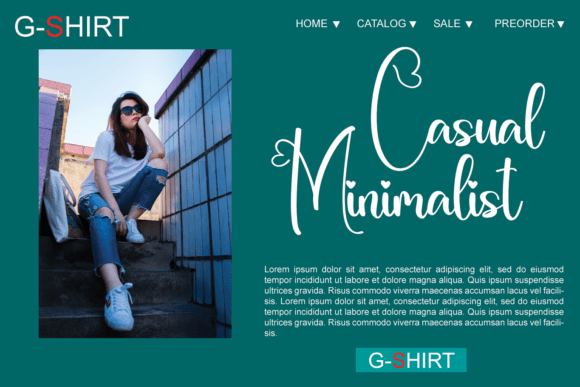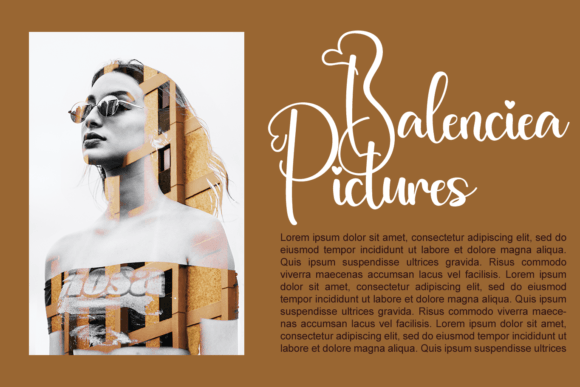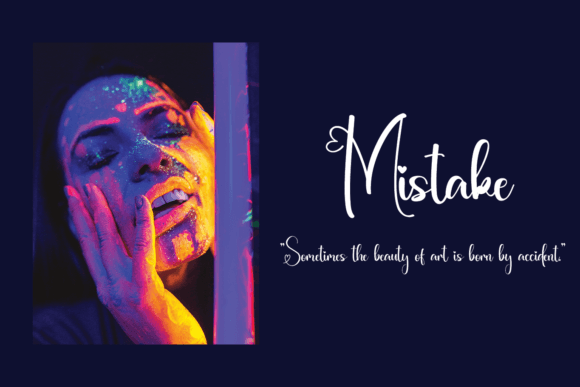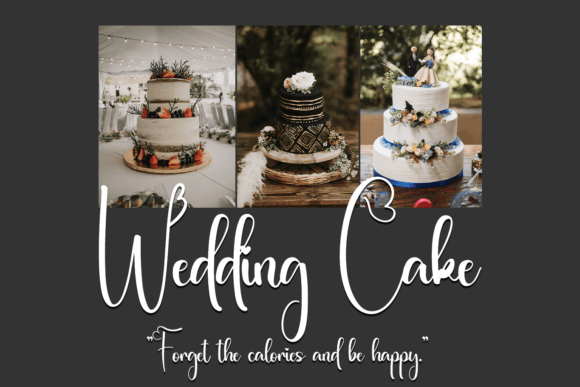
Happy New Year Font: Elevate Your Designs with Sophistication and Asymmetry
As the clock strikes midnight on New Year’s Eve, we bid adieu to the old and welcome the new with open arms. The excitement of a fresh start is palpable, and what better way to express it than with a font that exudes happiness and celebration? Look no further than the Happy New Year Font, a stunning typeface that combines sophistication with asymmetry, making it perfect for a wide range of design applications.
What Makes Happy New Year Font So Special?
The Happy New Year Font is a unique and eye-catching typeface that is sure to make your designs stand out from the crowd. Its sophisticated and asymmetrical design makes it an ideal choice for wedding invitations, thank you cards, quotes, greeting cards, logos, business cards, and any other design that requires a customized touch. Whether you’re a designer, crafter, or DIY enthusiast, this font is sure to become a favorite in your collection.
Key Features of Happy New Year Font
- Sophisticated and Asymmetrical Design: The Happy New Year Font boasts a unique and stylish design that adds a touch of elegance to any project.
- Versatile: This font is perfect for a wide range of design applications, from wedding invitations to business cards, and everything in between.
- Customizable: With the Happy New Year Font, you can add your own personal touch to your designs, making them truly one-of-a-kind.
Design Ideas Using Happy New Year Font
The Happy New Year Font is a versatile typeface that can be used in a variety of design projects. Here are a few ideas to get you started:
- Wedding Invitations: Add a touch of sophistication and elegance to your wedding invitations with the Happy New Year Font.
- Thank You Cards: Express your gratitude in style with beautifully designed thank you cards featuring the Happy New Year Font.
- Quotes and Greeting Cards: Create inspiring quotes and greeting cards that are sure to bring a smile to the recipient’s face.
- Logos and Business Cards: Elevate your brand with a custom logo and business card design featuring the Happy New Year Font.
Tips for Using Happy New Year Font
To get the most out of the Happy New Year Font, here are a few tips to keep in mind:
- Experiment with Colors: Try pairing the Happy New Year Font with different colors to create a unique and eye-catching design.
- Play with Layouts: Don’t be afraid to experiment with different layouts and arrangements to find the perfect look for your design.
- Add Graphics and Images: Consider adding graphics and images to your design to make it more visually appealing.